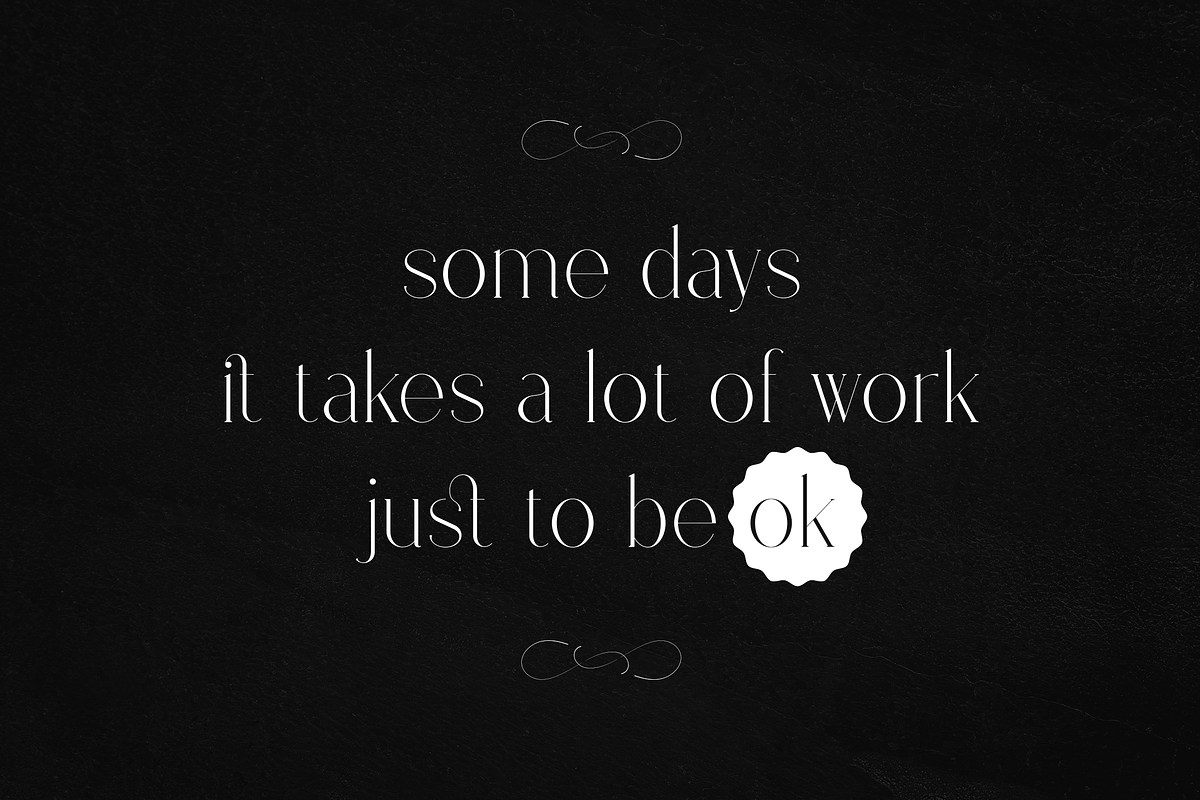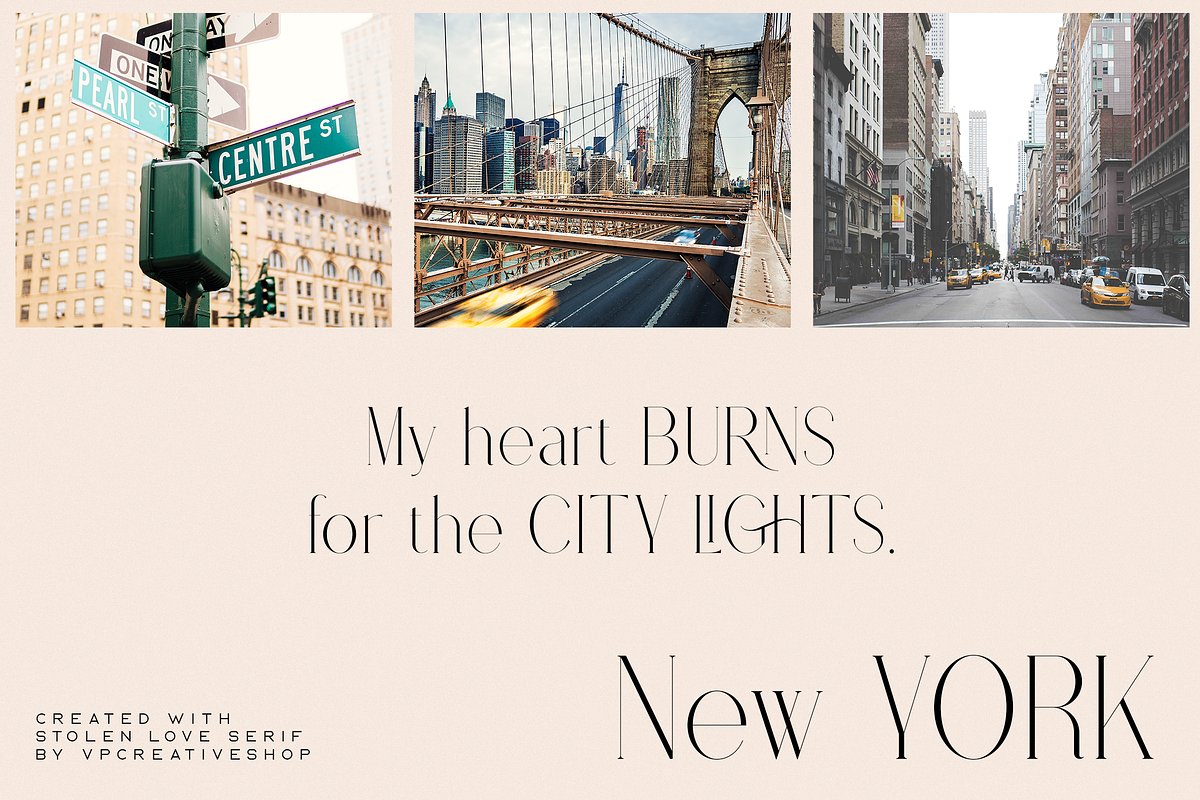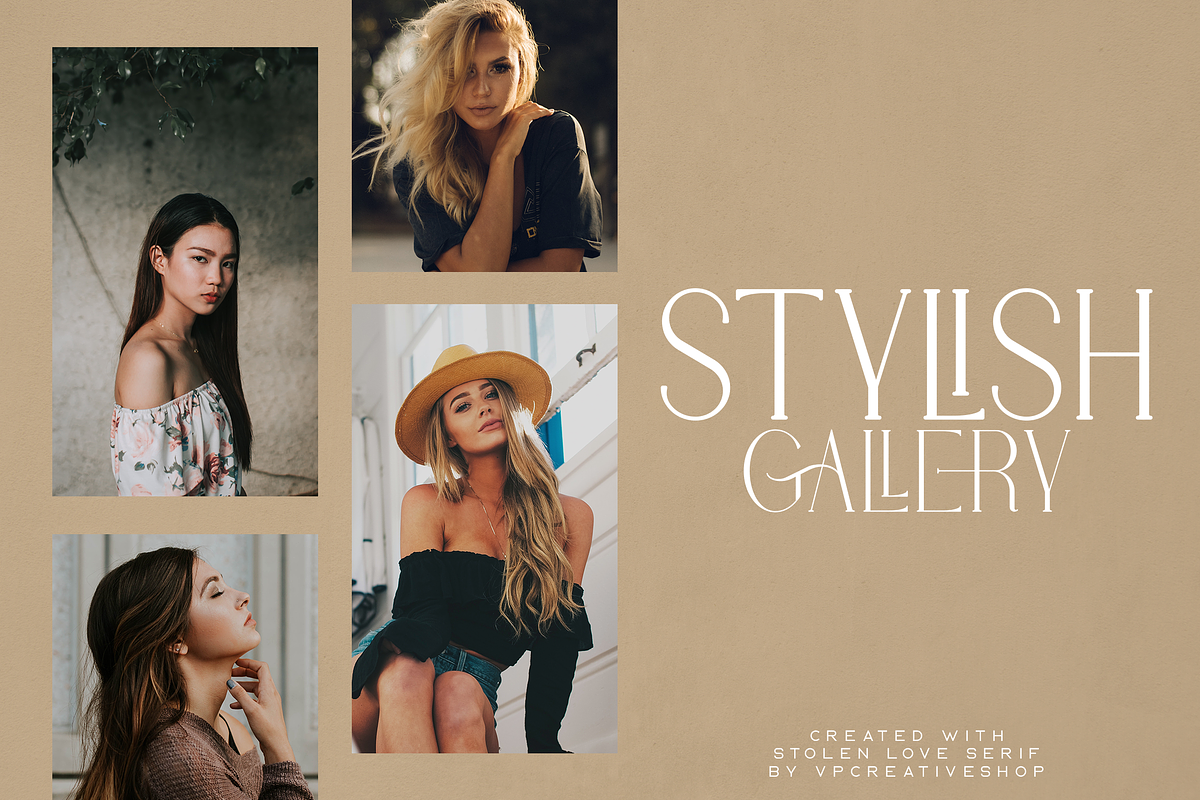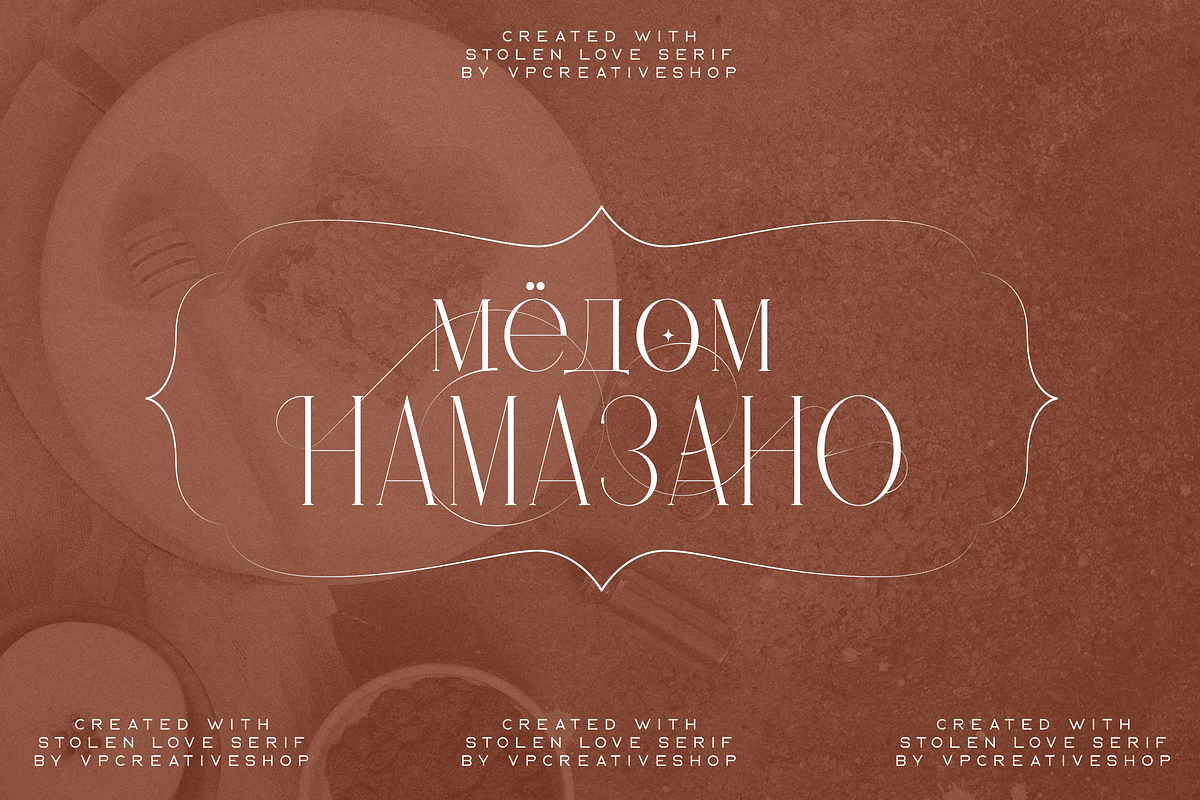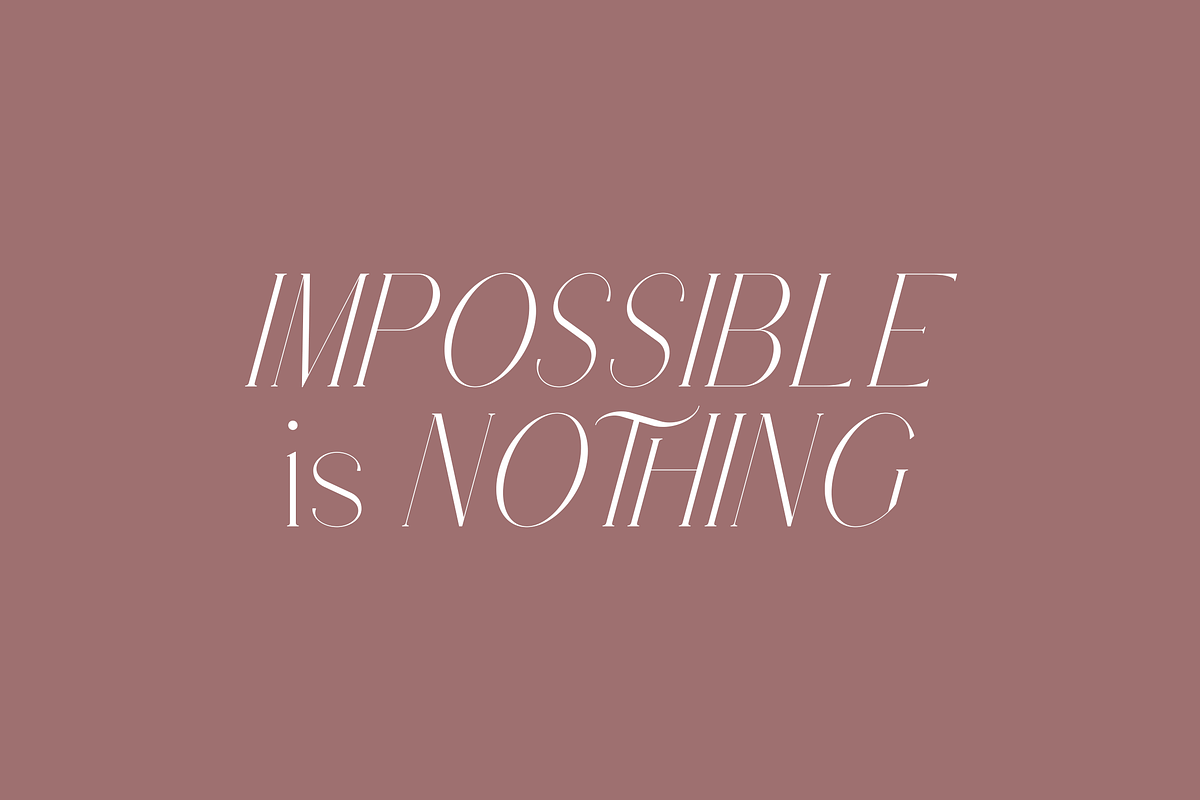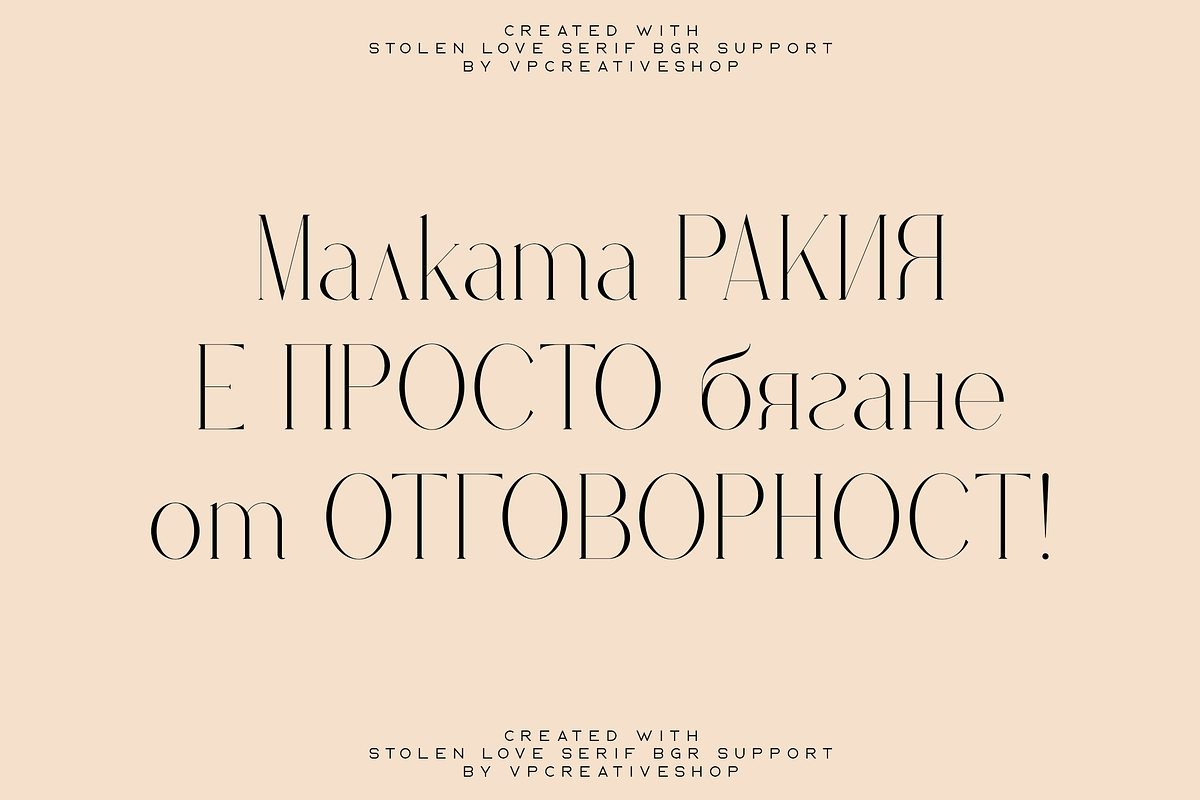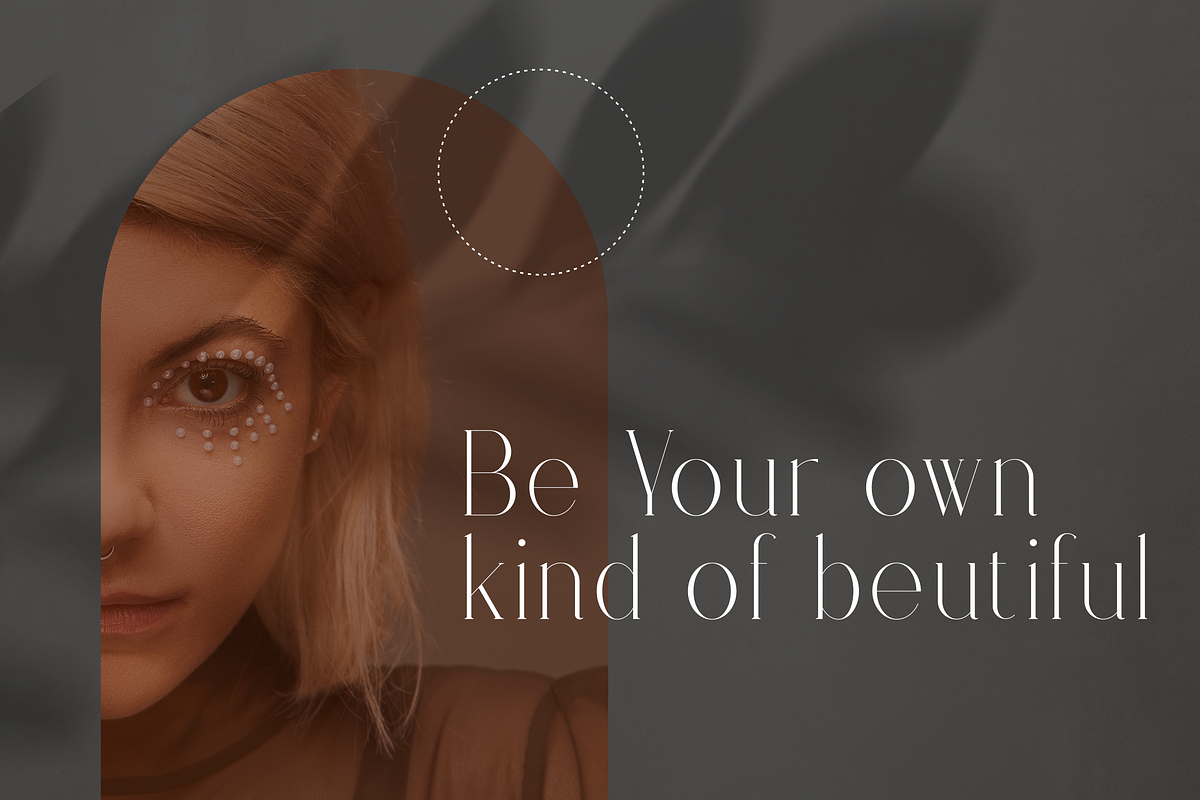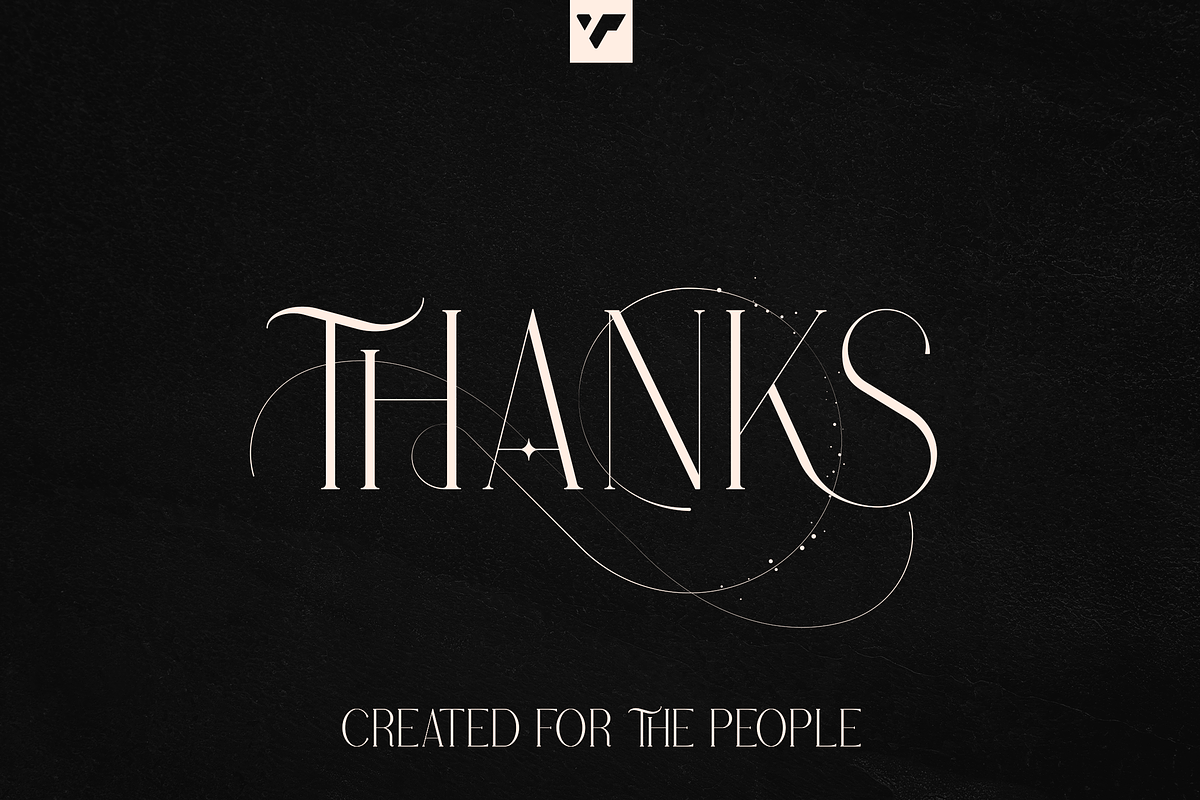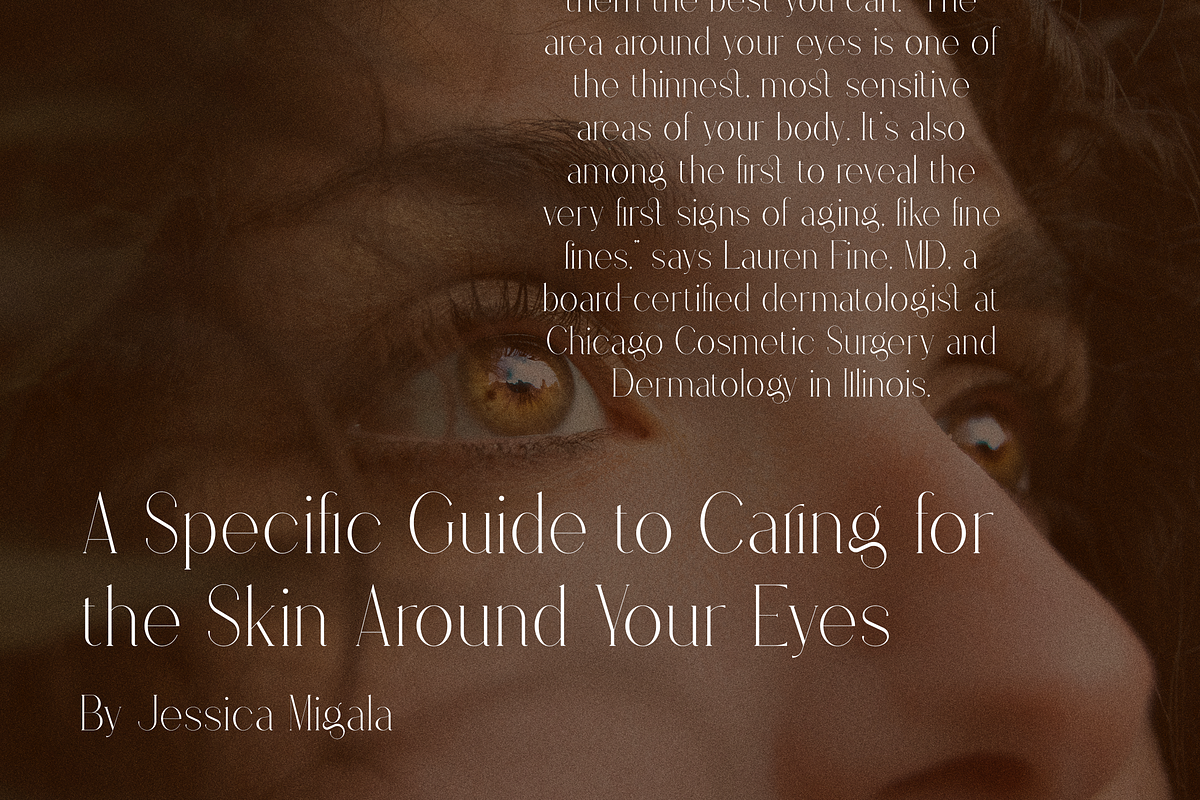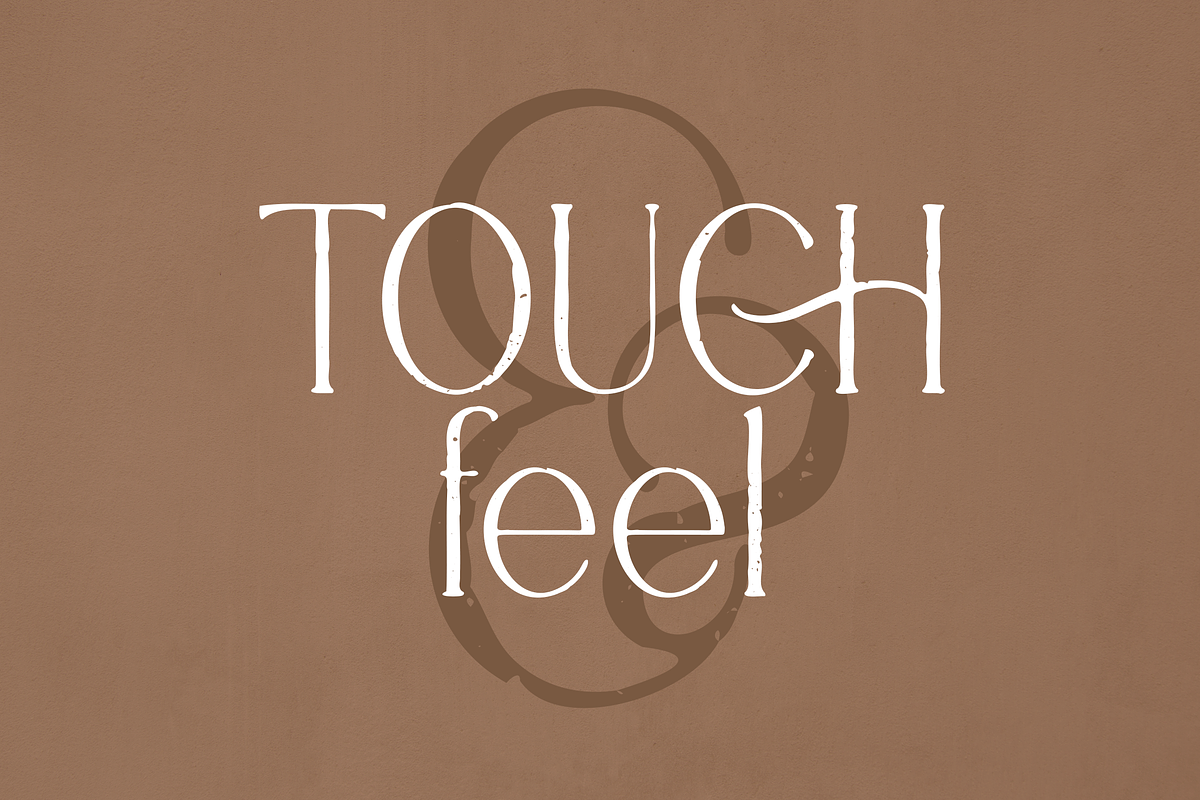
Stolen Love - Elegant serif typeface
Introducing Stolen Love - Stylish serif typeface + Swashes and Ornaments
Stolen Love is stylish and creative typeface loaded with 11 different fonts, alternate and ligature glyphs, 52 swashes in 3 different sizes, 26 ornaments to make you typography truly unique!
- Uppercase, lowercase, numeral, punctuation & Symbol
- Light, Regular, Bold, Extra Bold, Black and Rough Versions
- Italic Light, Regular, Bold, Extra Bold and Black
- 52 swashes in three sizes ( small, medium, big )
- 26 ornaments
- BGR support - special fonts with Bulgarian alphabet
- ligature glyphs
- alternates
- Multilingual support - 95 languages